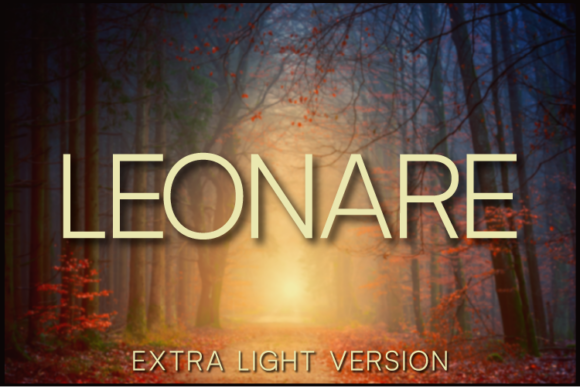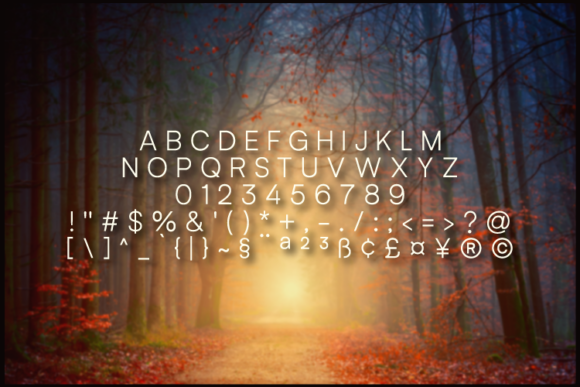
Leonare Extra Light Font
About Leonare Extra Light Font
Leonare is a tasteful sans serif font. Its casual charm makes it appear wonderfully down-to-earth, readable and, ultimately, incredibly versatile. Leonare will look outstanding in any context, whether it’s being used on busy backgrounds or as a standalone headline!